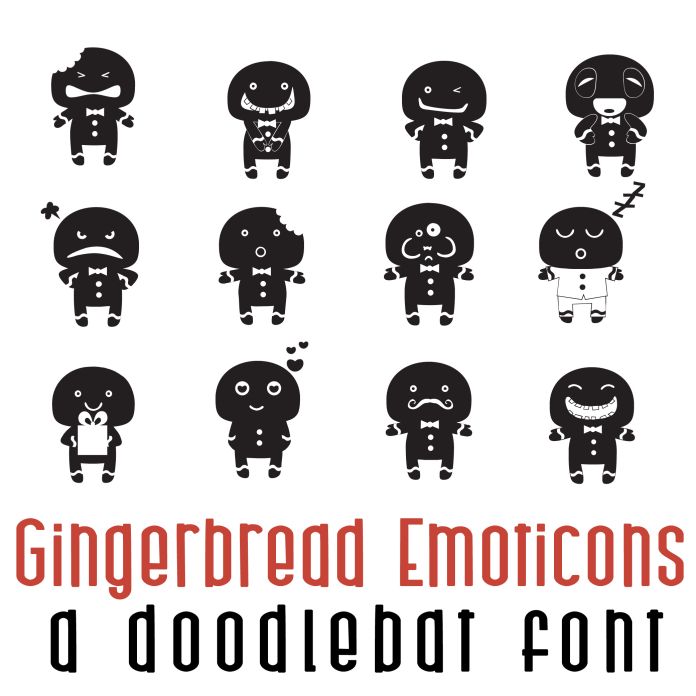
This fun doodle style doodlebat font features 26 gingerbread emoticons. Perfect for cards, crafts, gifts, decor, scrap book pages, planner stickers and more!